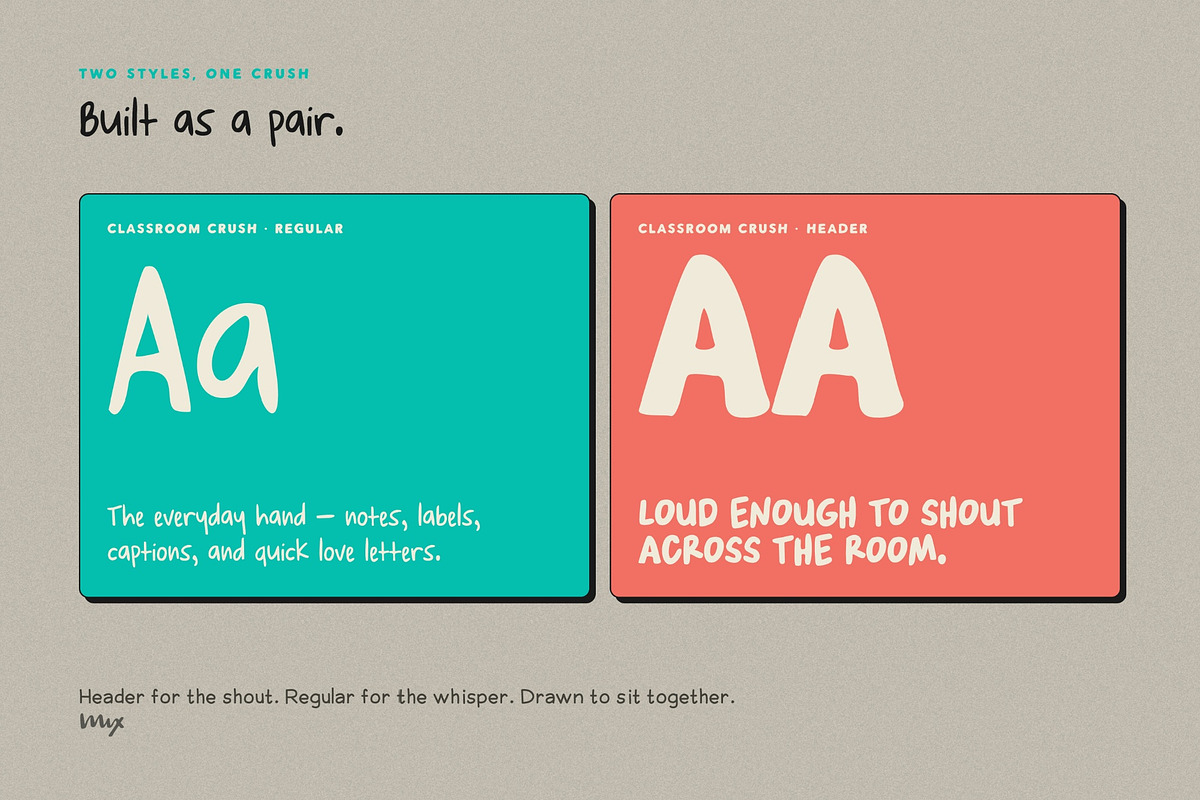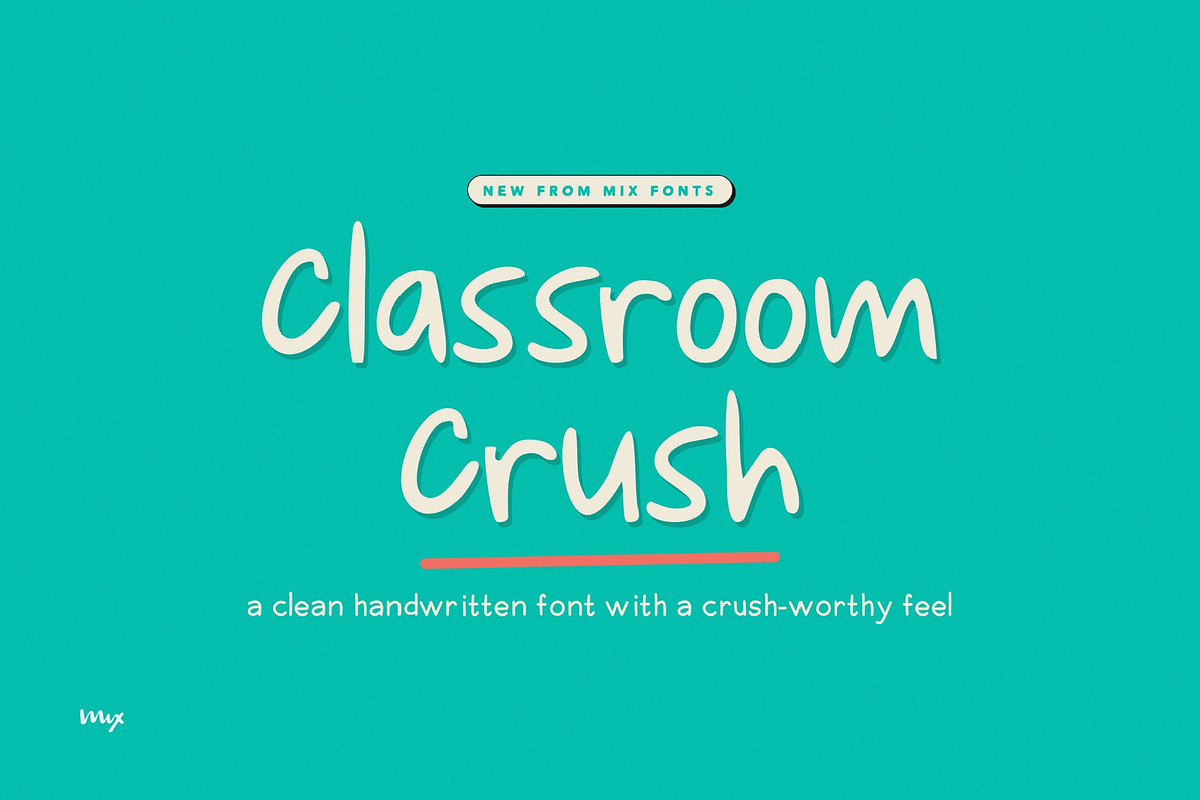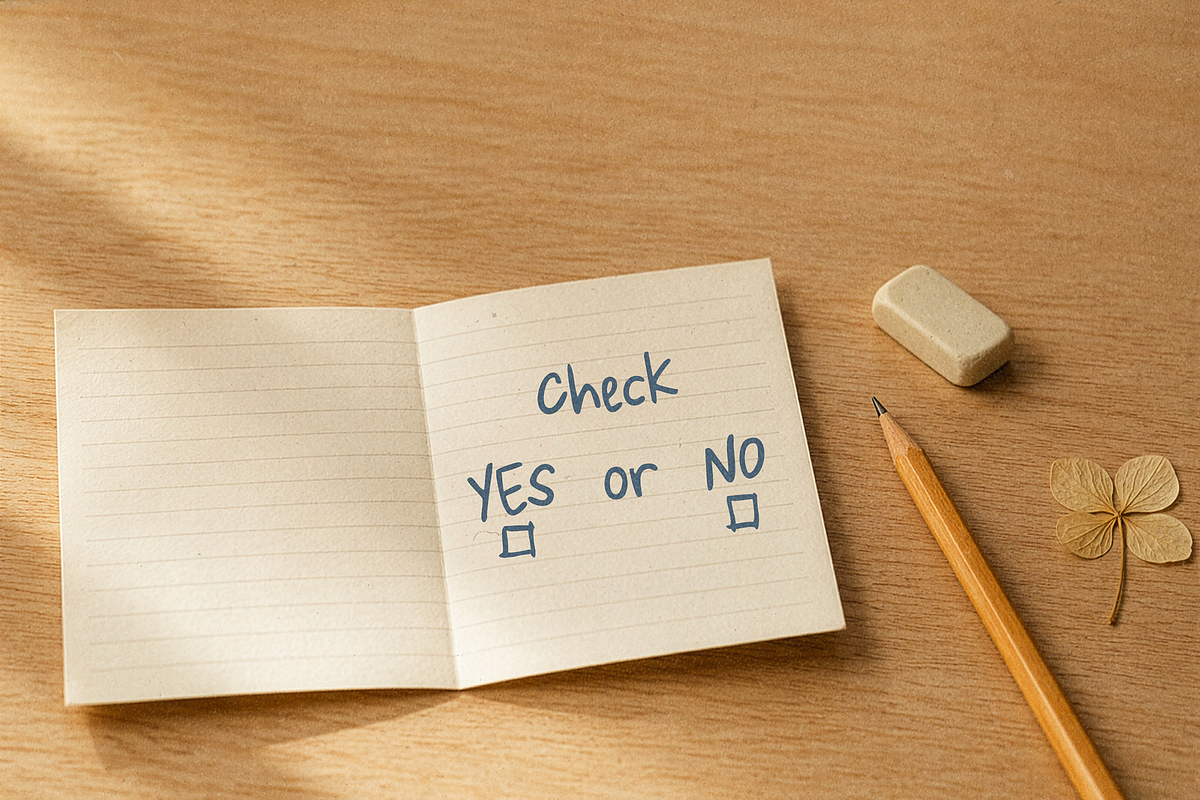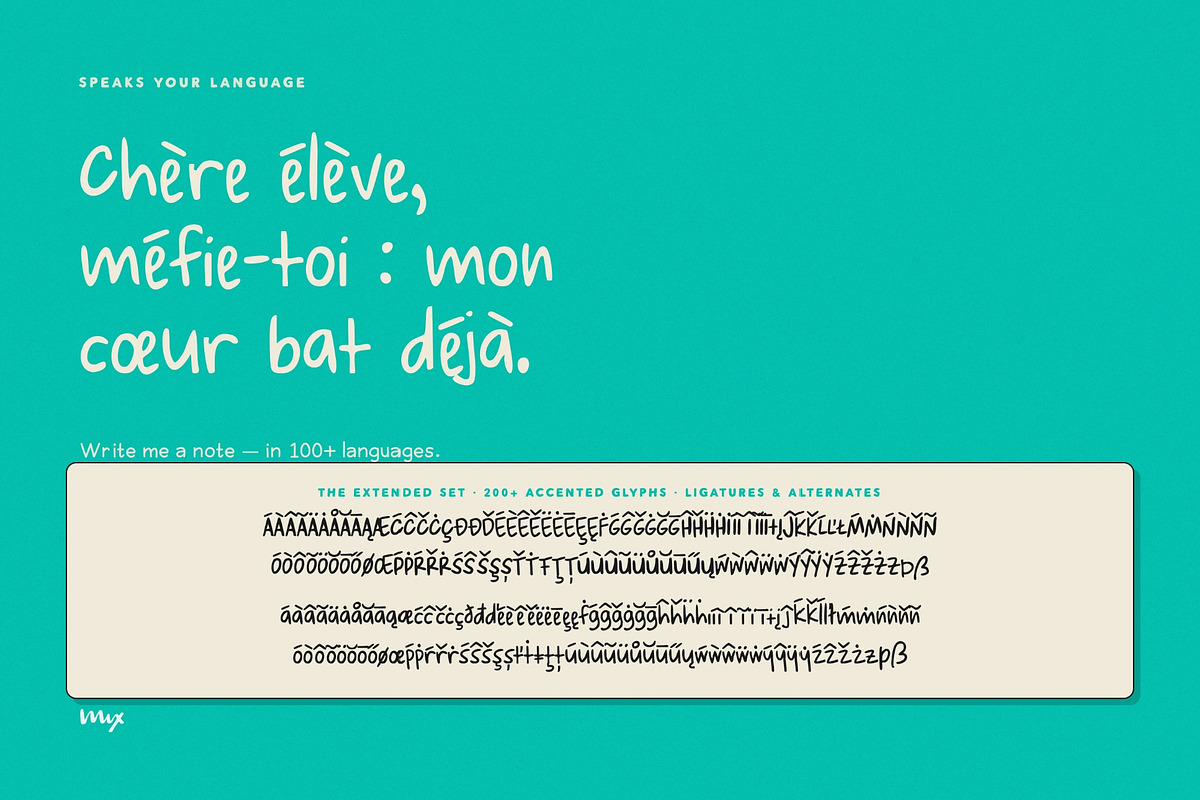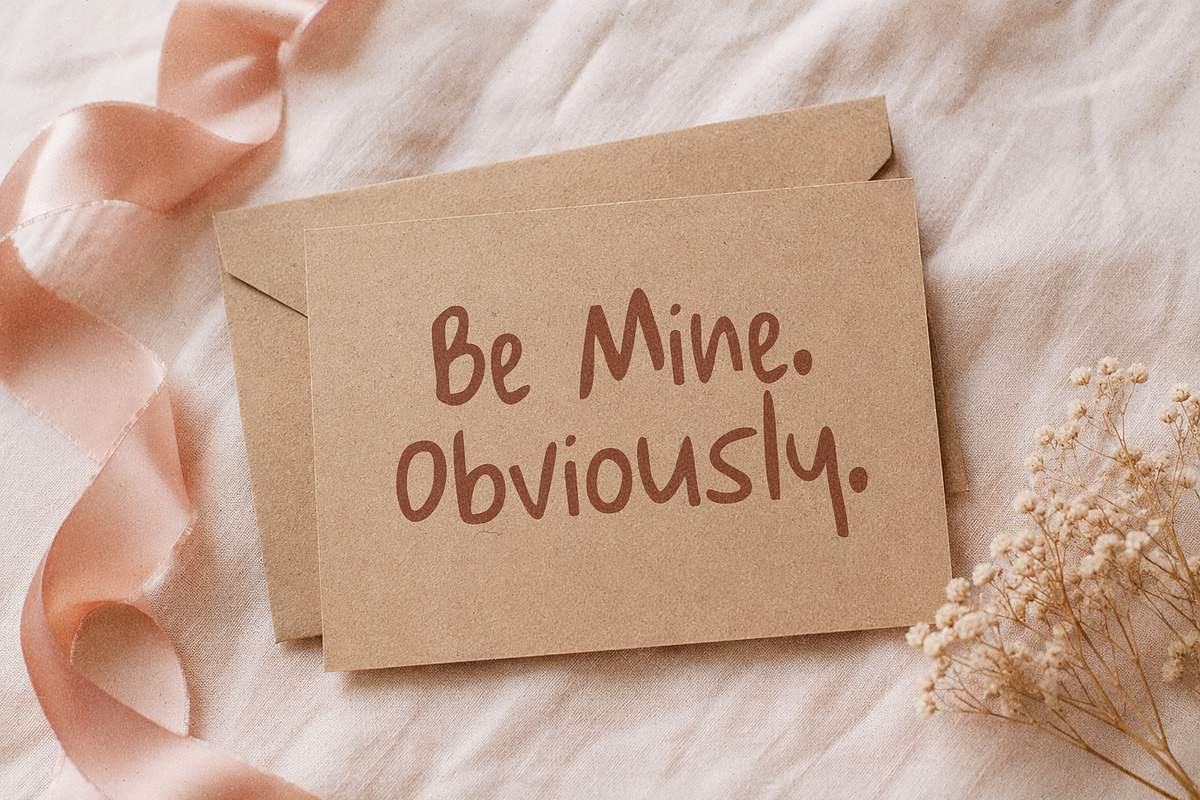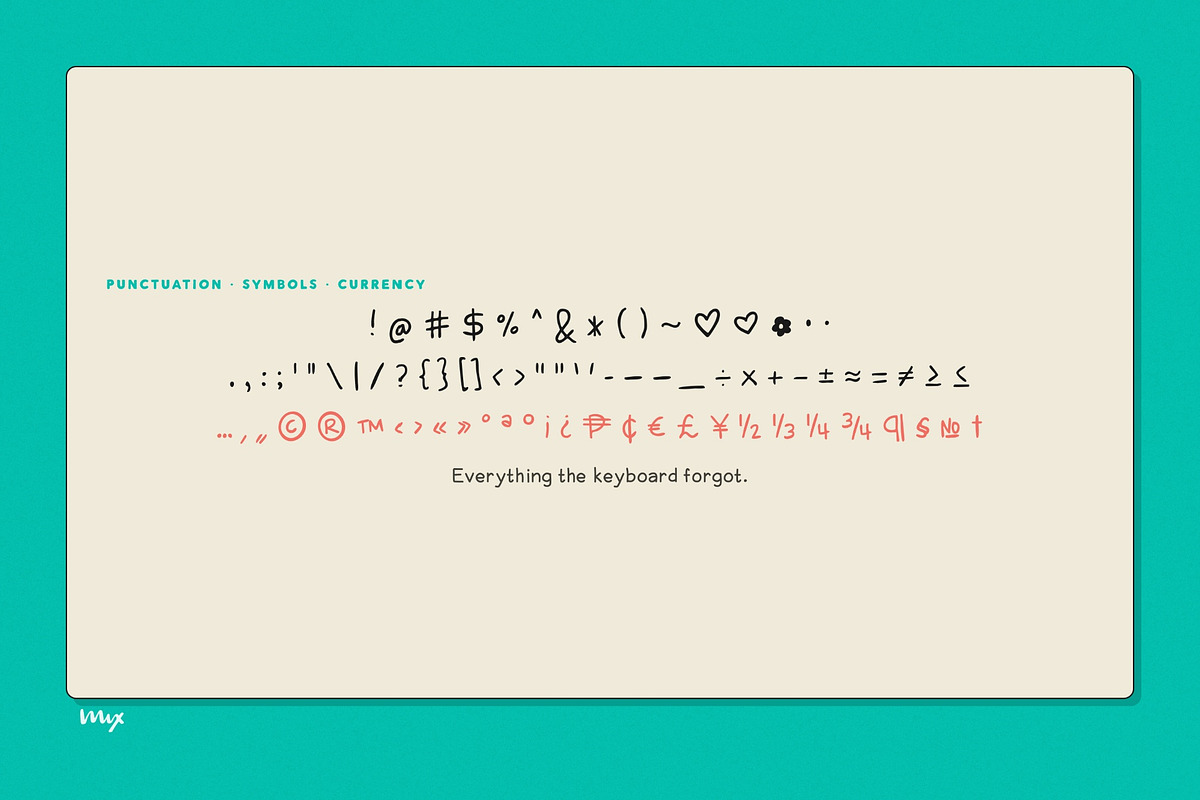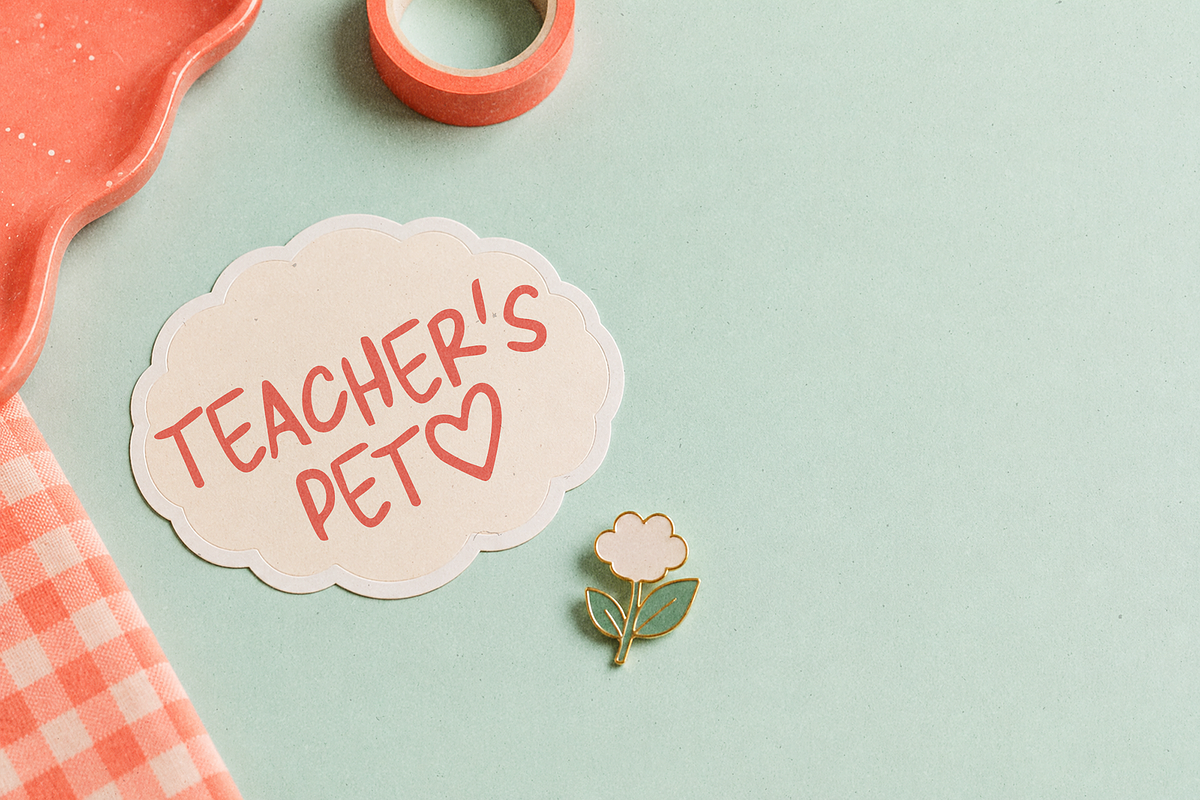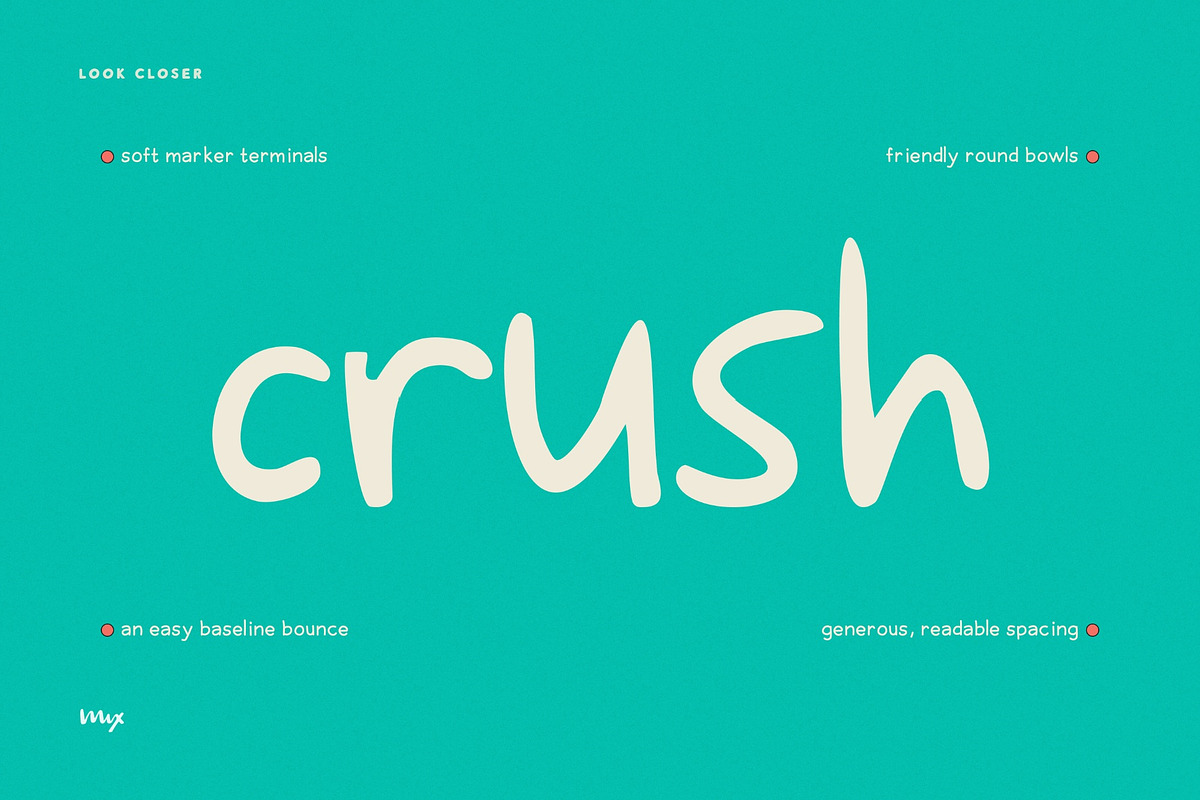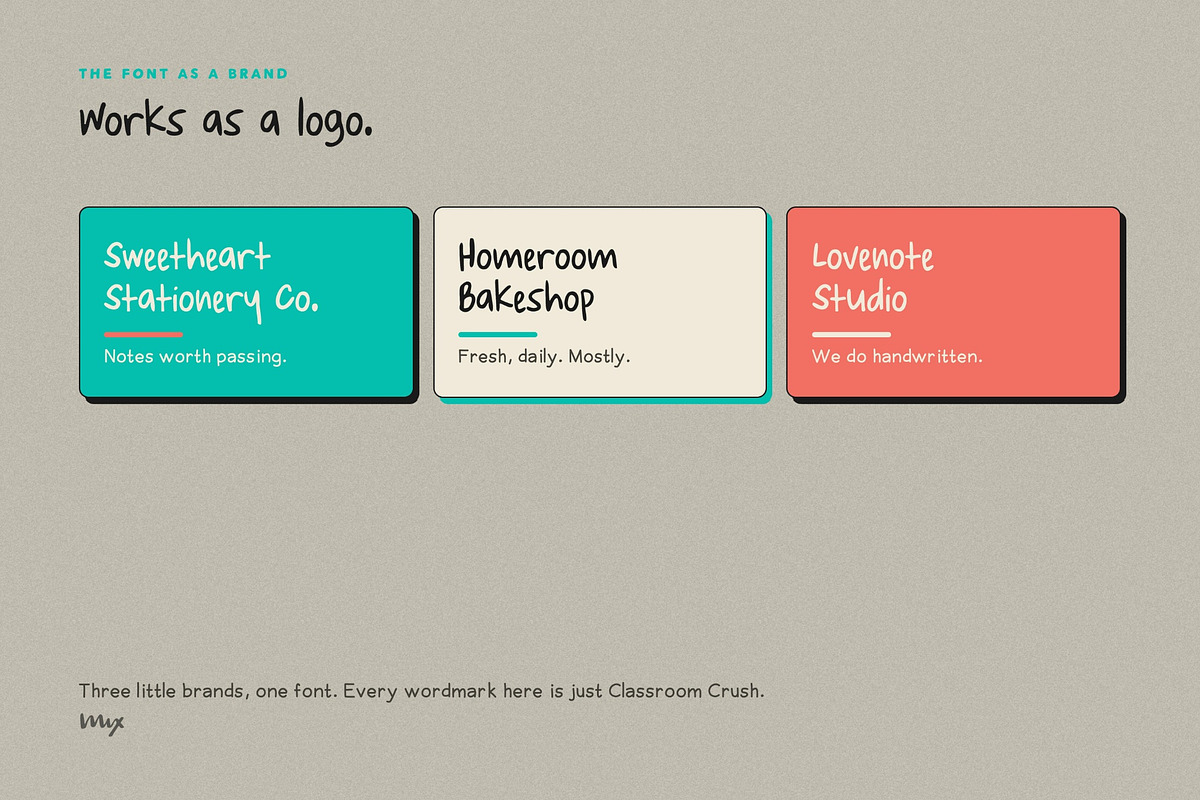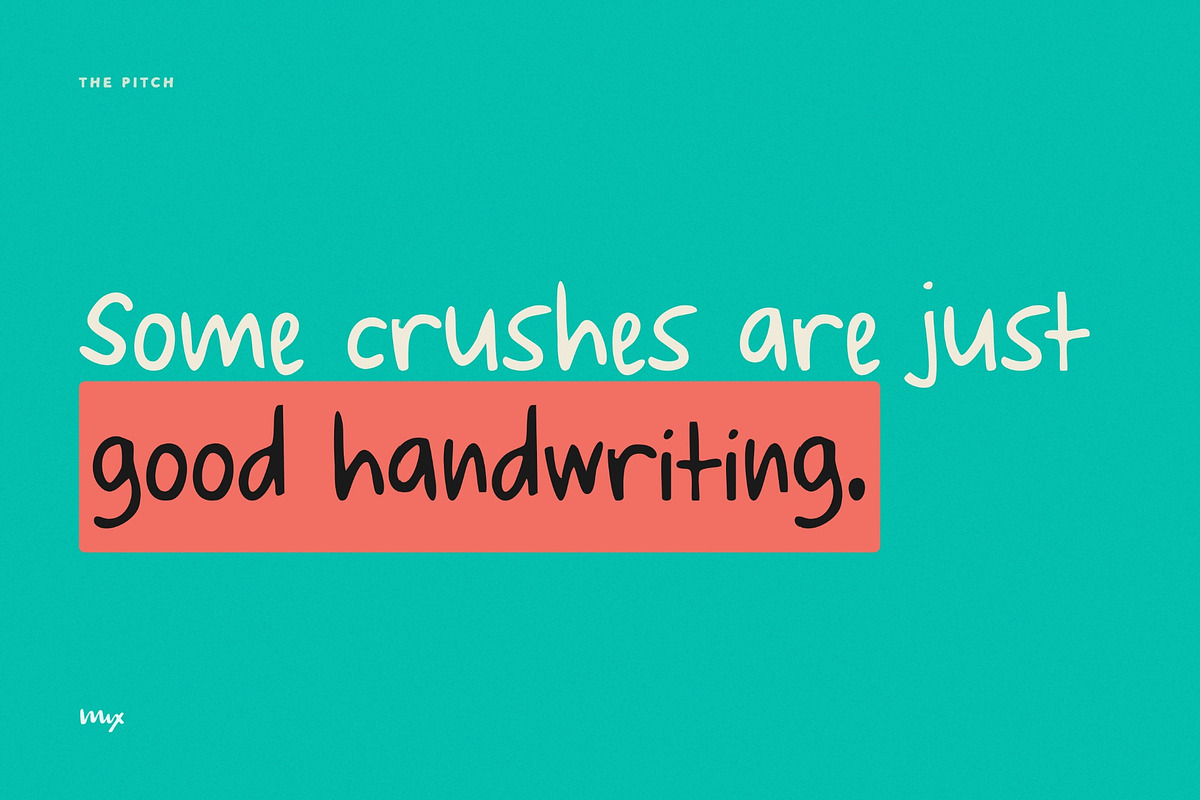
Classroom Crush — Handwritten Duo
Meet Classroom Crush, a handwritten font that's part sweet, part smart, and 100% legible. Think notebook scribbles minus the mess, or the handwriting your favorite teacher had on the board (the one who always gave bonus points).
It comes as a duo. Classroom Crush is the friendly everyday hand for text, and Classroom Crush Headers is the bold all-caps sibling for when you need to shout nicely.
Casual but clear, it's made for worksheets and planners, YouTube thumbnails, journal prompts, crafty packaging, digital stickers, and anything that needs a dash of personality without looking chaotic.
Neat, friendly, and approachable. Made for classroom creators, lifestyle vloggers, and anyone trying to pass the vibe check and the spelling test.
Full uppercase and lowercase
Numbers, punctuation, and symbols
Multilingual support with extended Latin characters
The bold Headers style
Whether you're making lesson slides, scrapbook captions, or a little book of your kid's first-grade memories, Classroom Crush shows up like the overachiever font you never knew you needed.